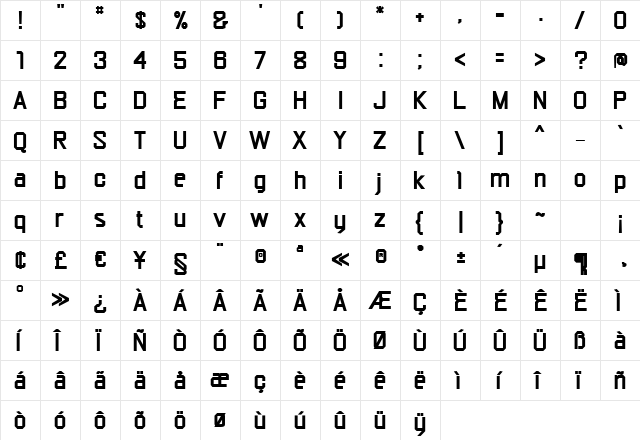
Escom-Bold Regular
Design Context for Escom-Bold Typeface
Escom-Bold takes a measured approach to typography — its balanced proportions and neutral character make it a reliable workhorse for both digital and print work. Its bold stroke weight gives it real presence on the page.